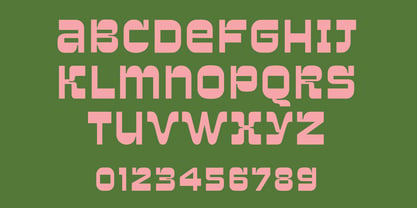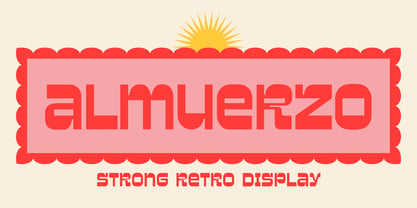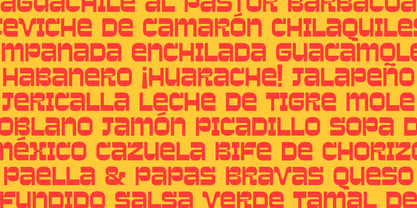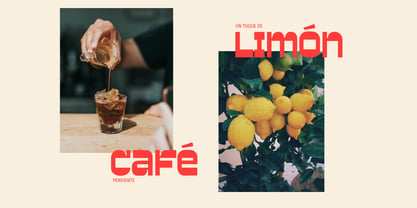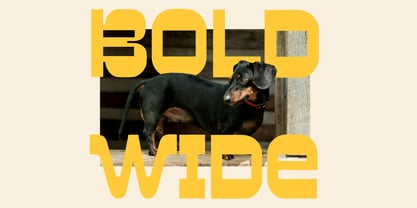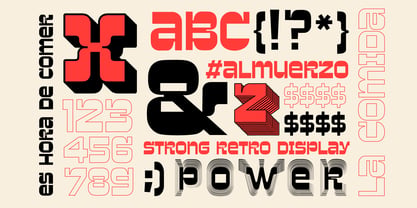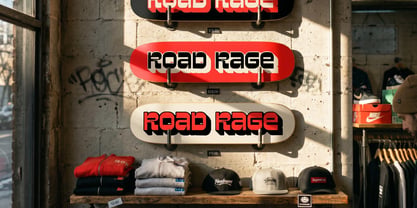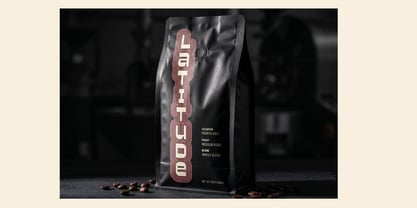
Almuerzo
by Dirty Bandits
An Unapologetically Strong Retro Display Font
A robust, retro-modern display font. Perfect for heavy-duty packaging, bold visual identities, and large-scale mural design.
Almuerzo is a high-impact display font that merges clean, geometric architecture with the gritty, unyielding soul of classic sign painting. Featuring heavy horizontal strokes and an over-weighted rhythm, it is engineered to dominate high-contrast environments and demand immediate attention. It’s funky, it’s industrial, and it bridges the gap between mid-century Americana nostalgia and contemporary design—which is exactly why it stands out.
Key Features:
Reverse-Stress Geometry: Built with a unique weight distribution that shifts emphasis to the horizontal lines, creating a striking visual rhythm.
Large-Scale Weight: Features a massive, dense silhouette tailored specifically for primary headers, packaging titles, and environmental graphics that require maximum presence.
Retro-Modern Soul: Effortlessly combines nostalgic, hand-crafted character forms with clean, stable geometry for a fresh take on vintage block lettering.